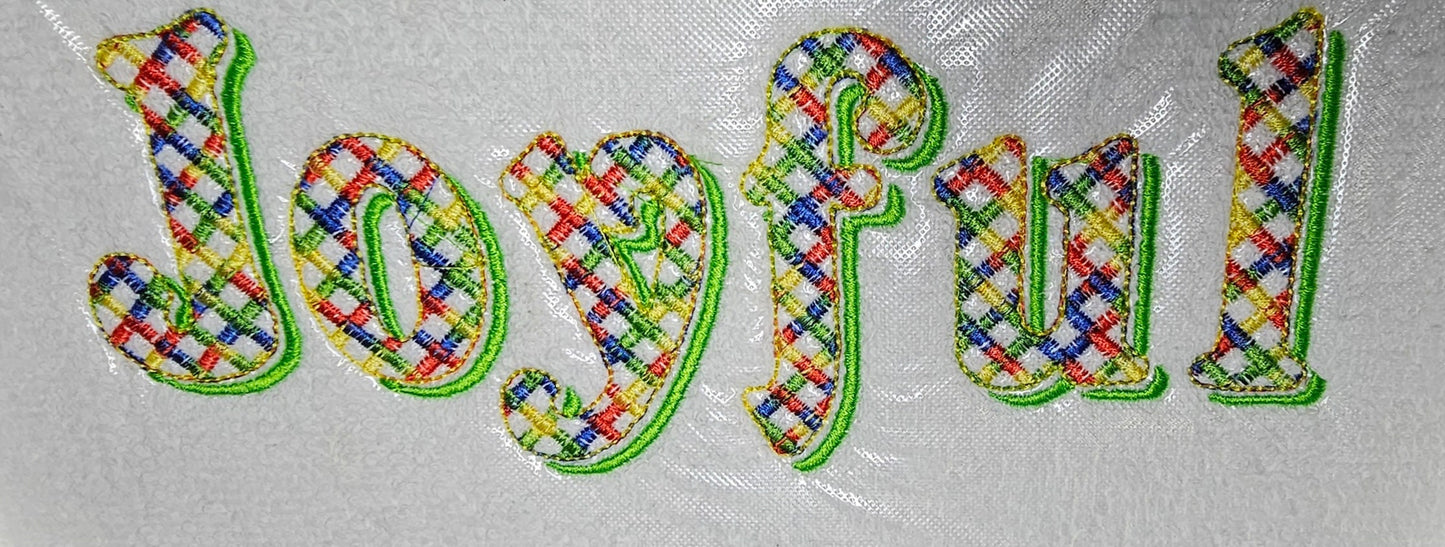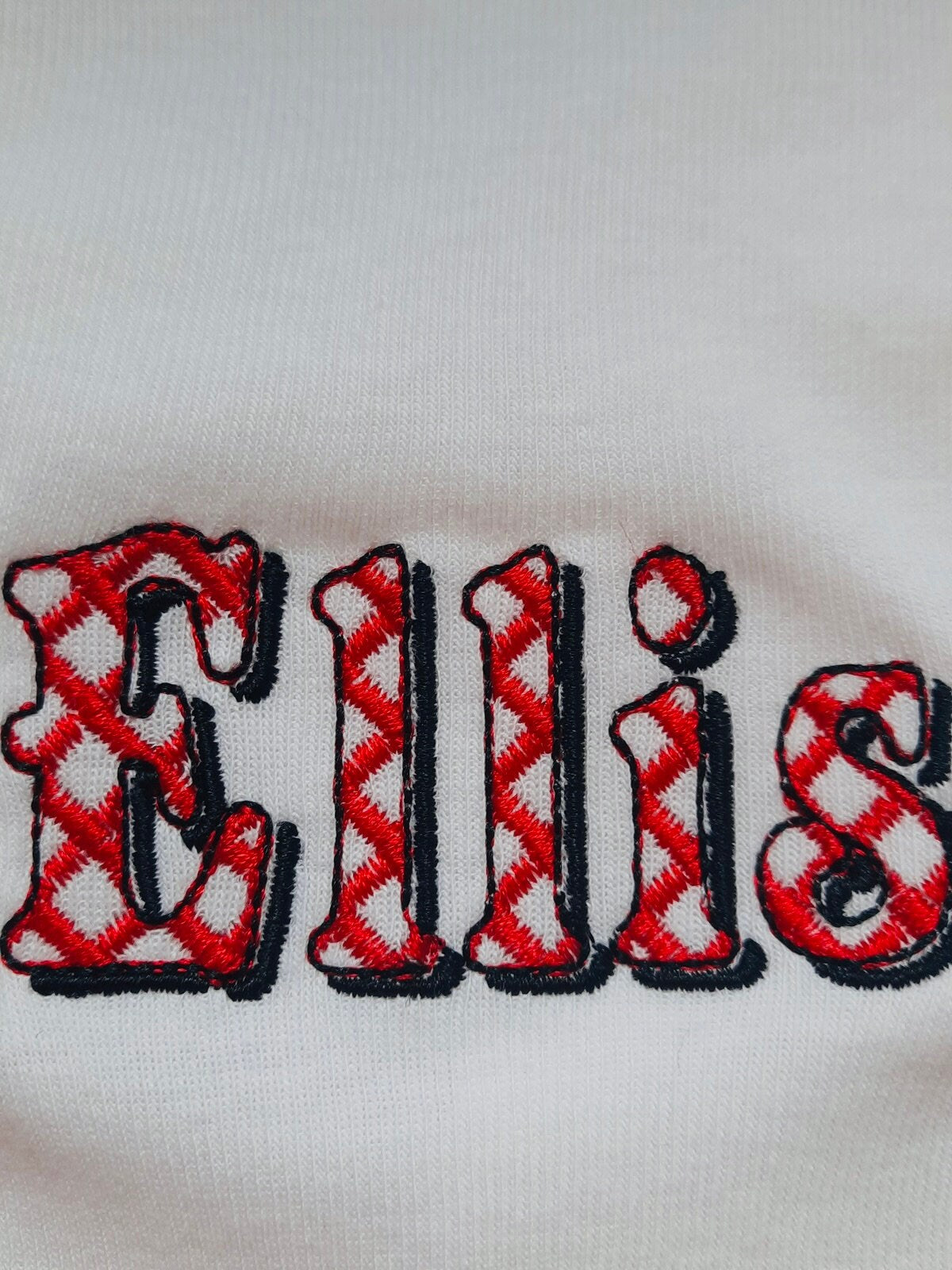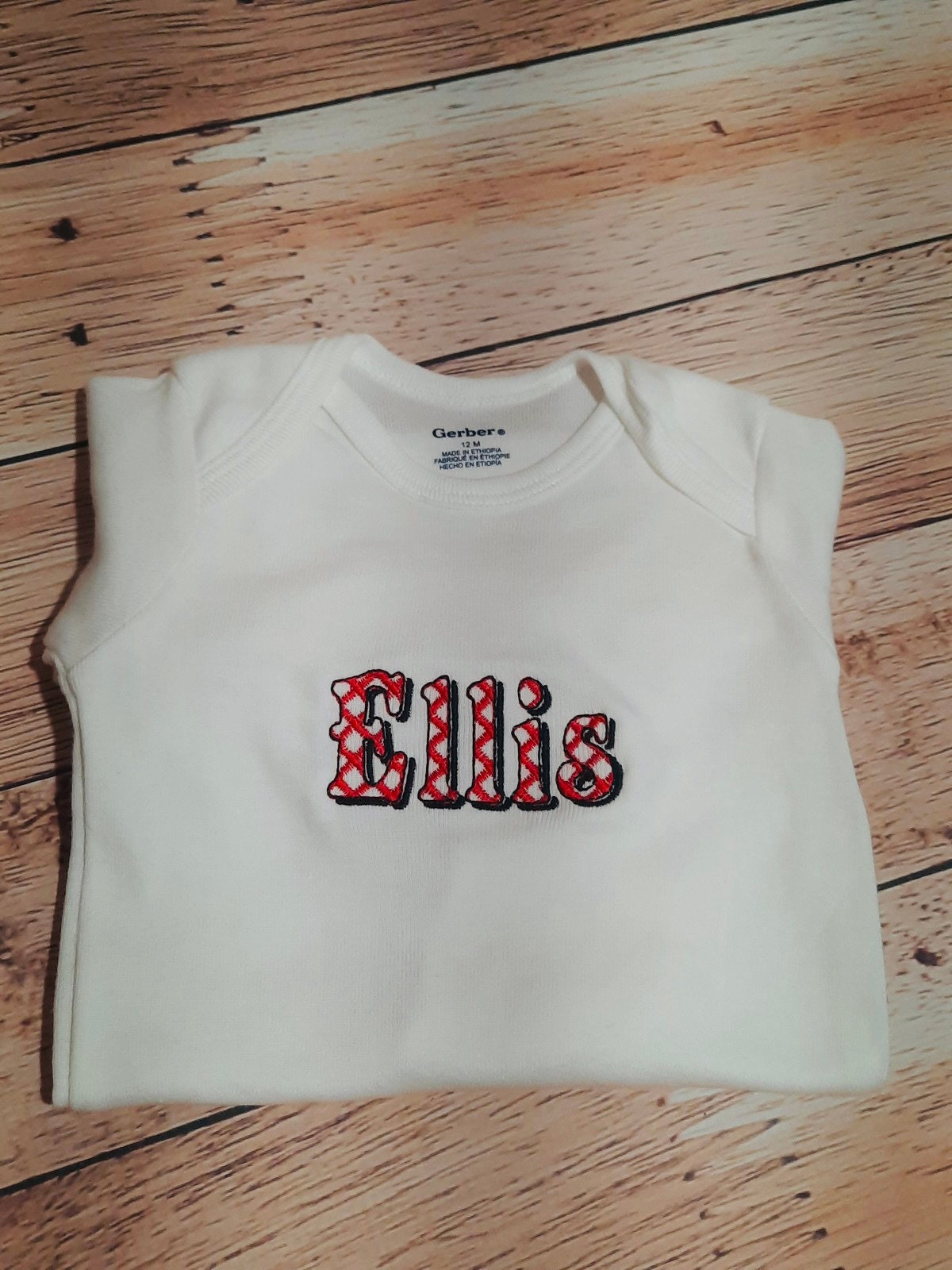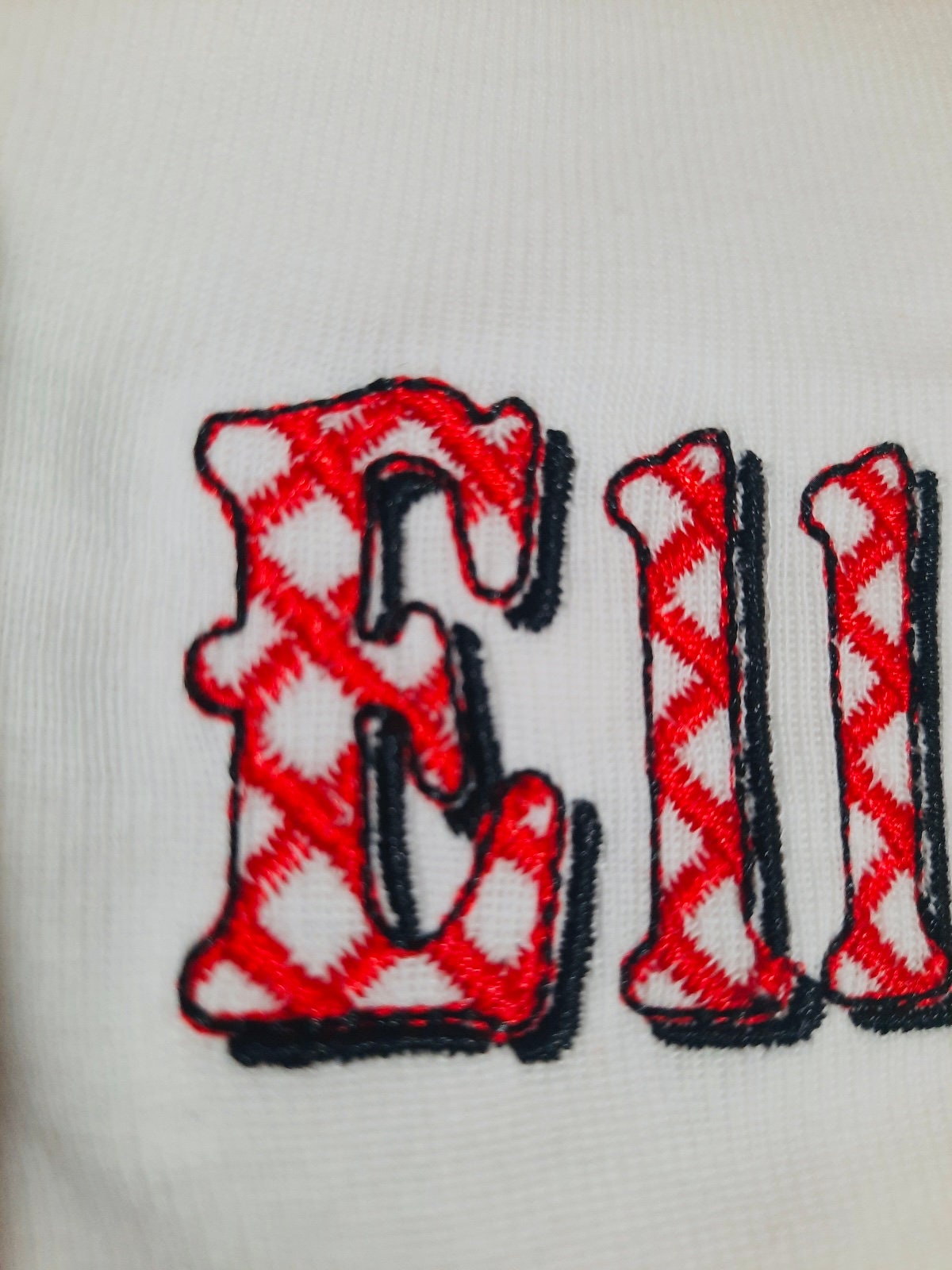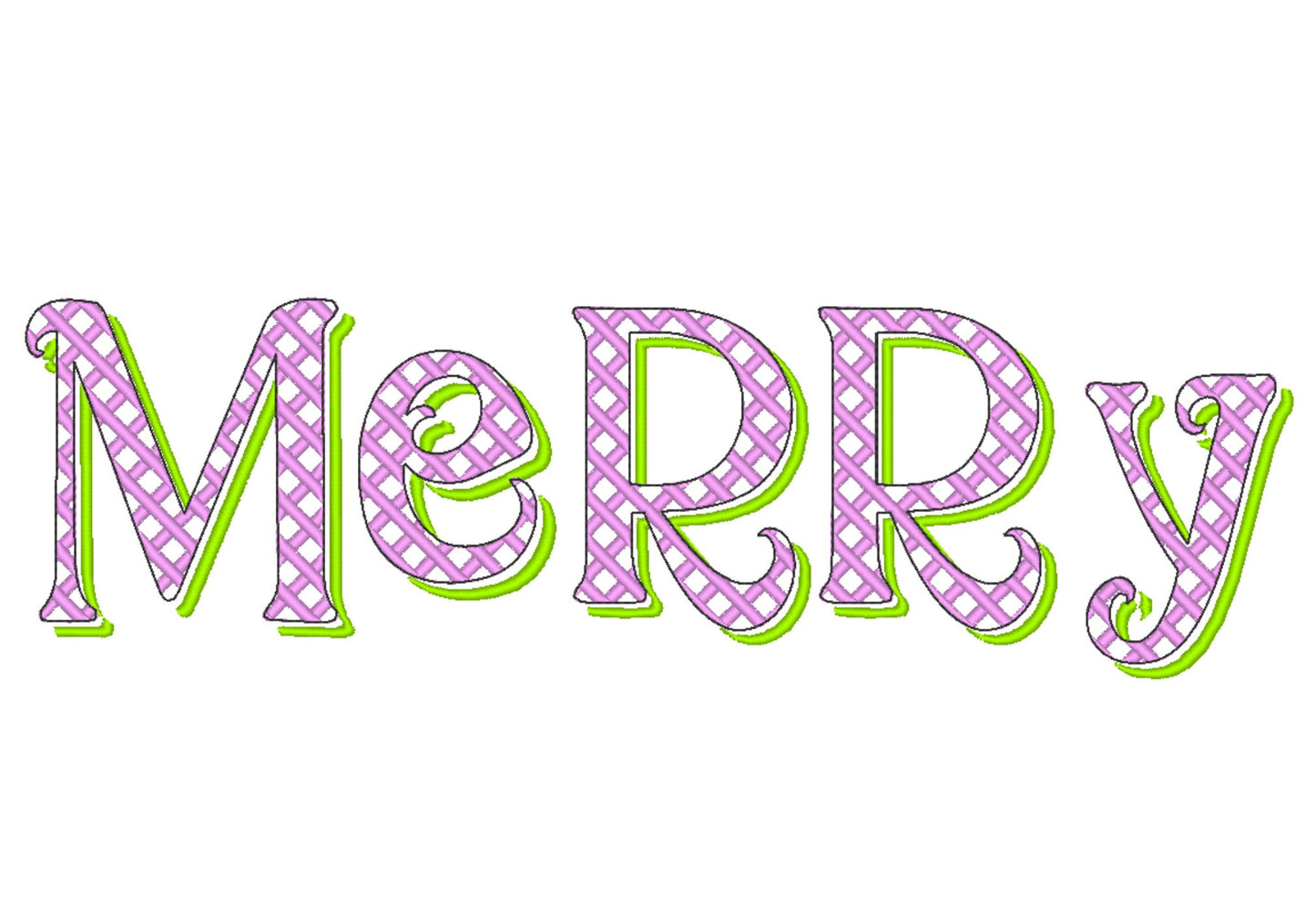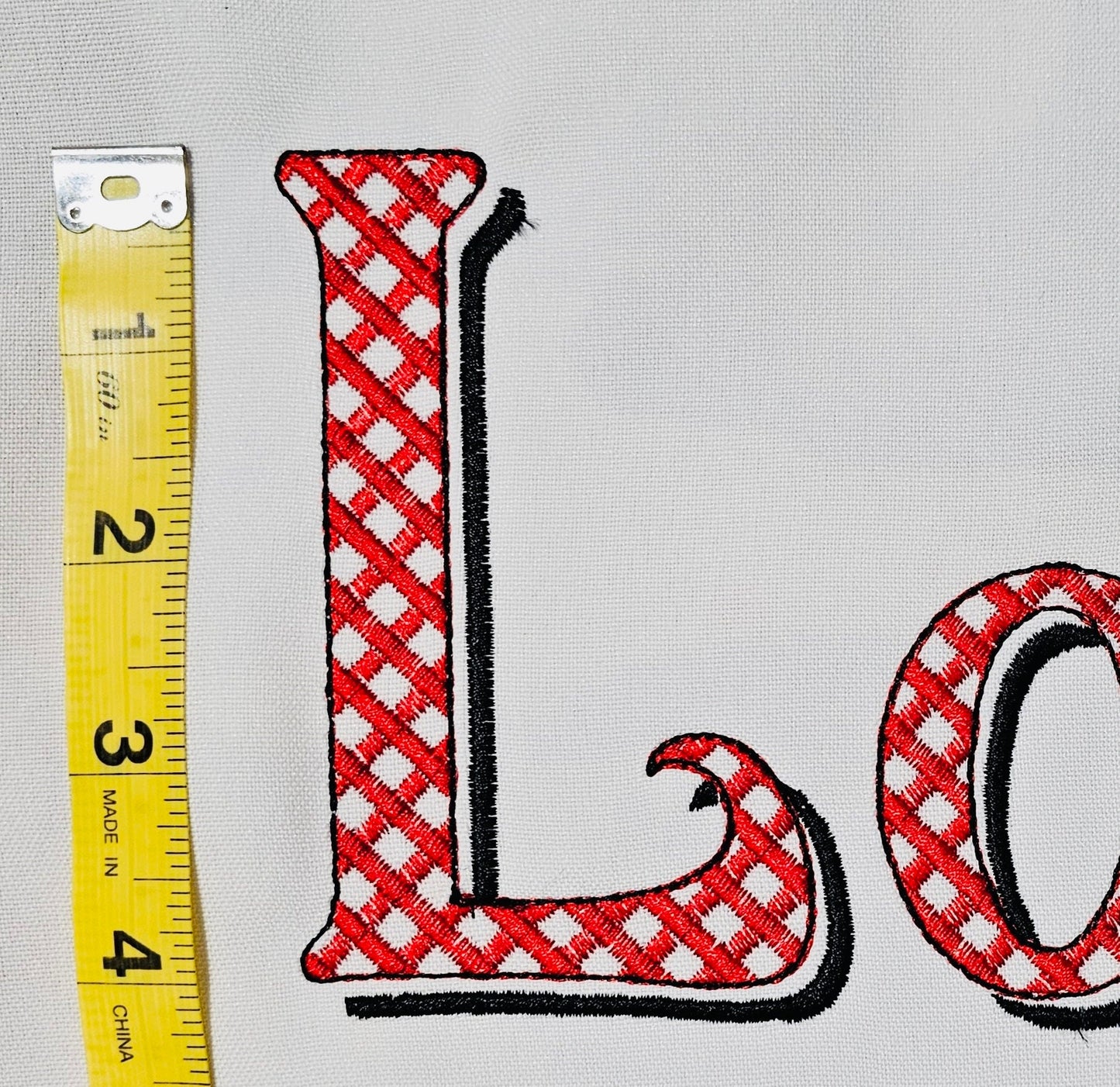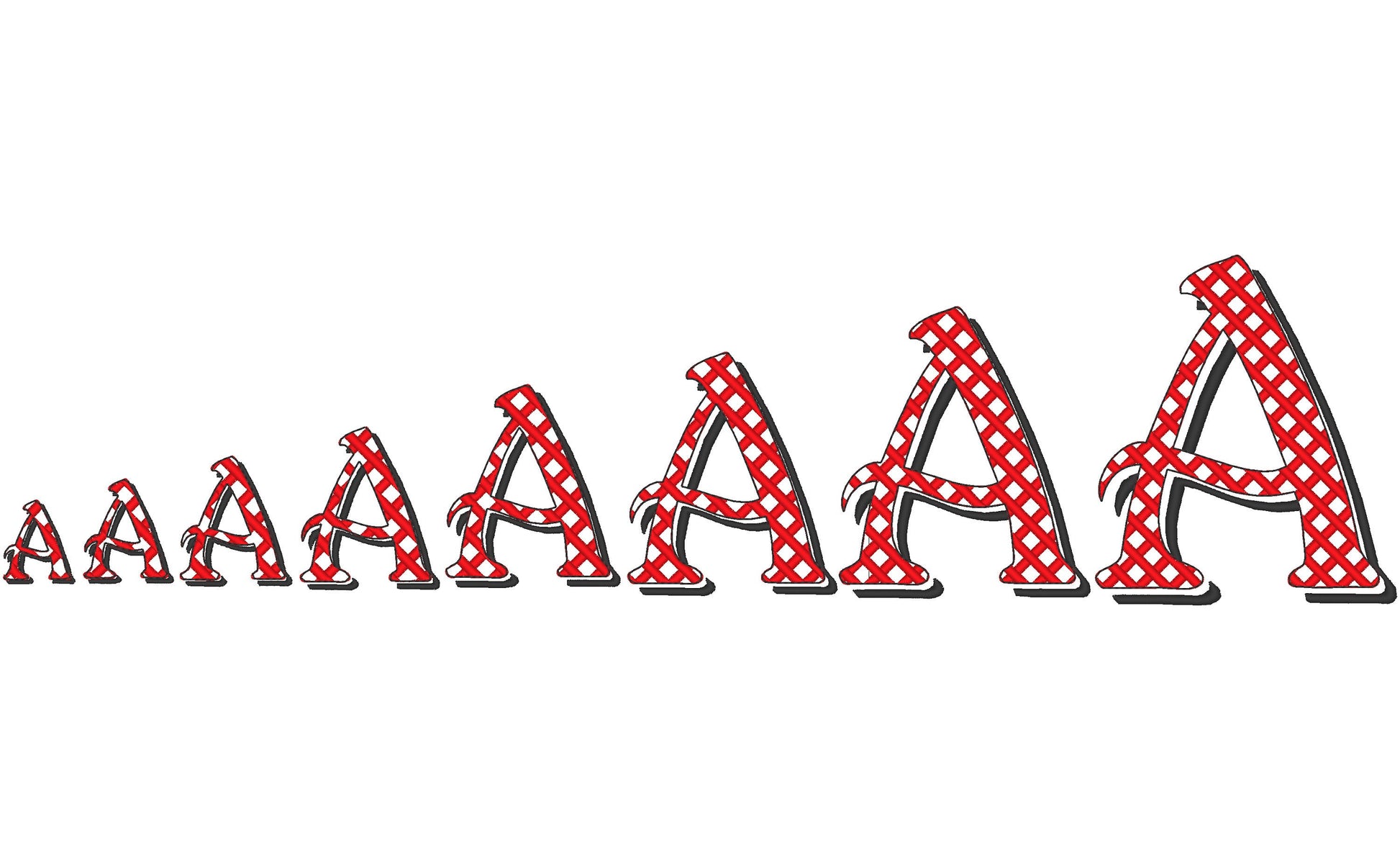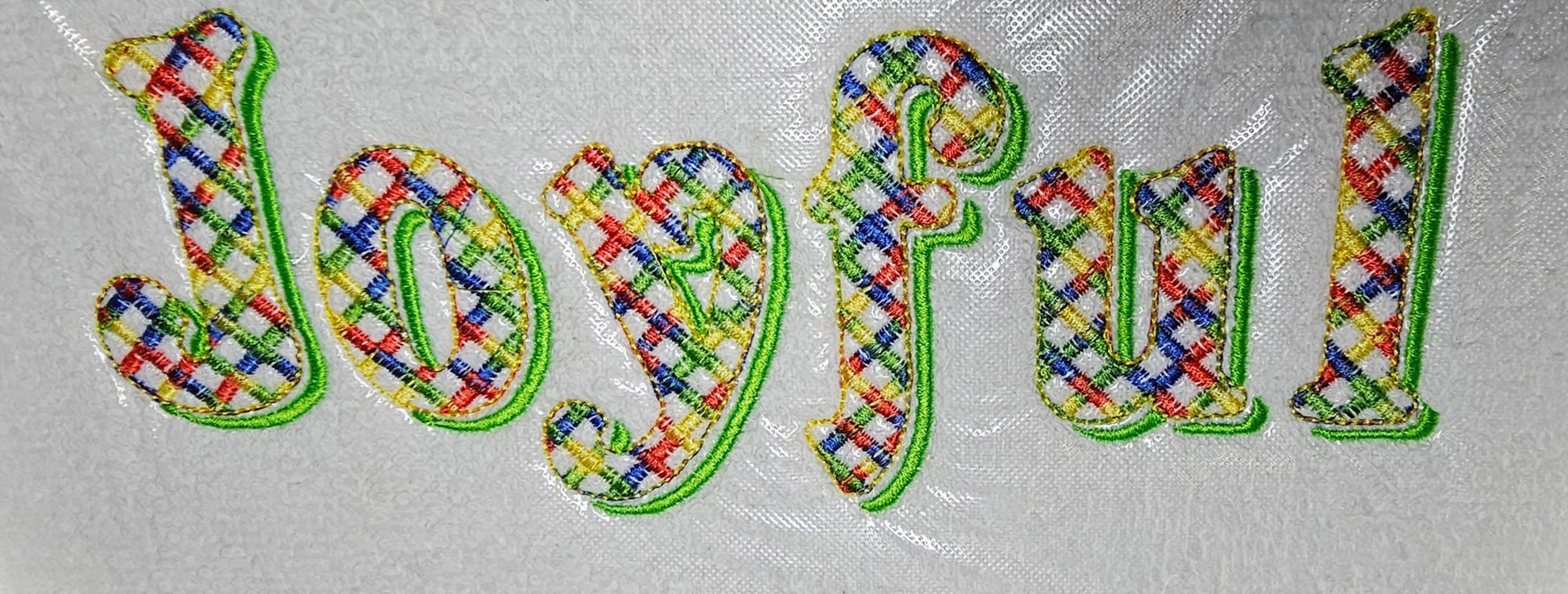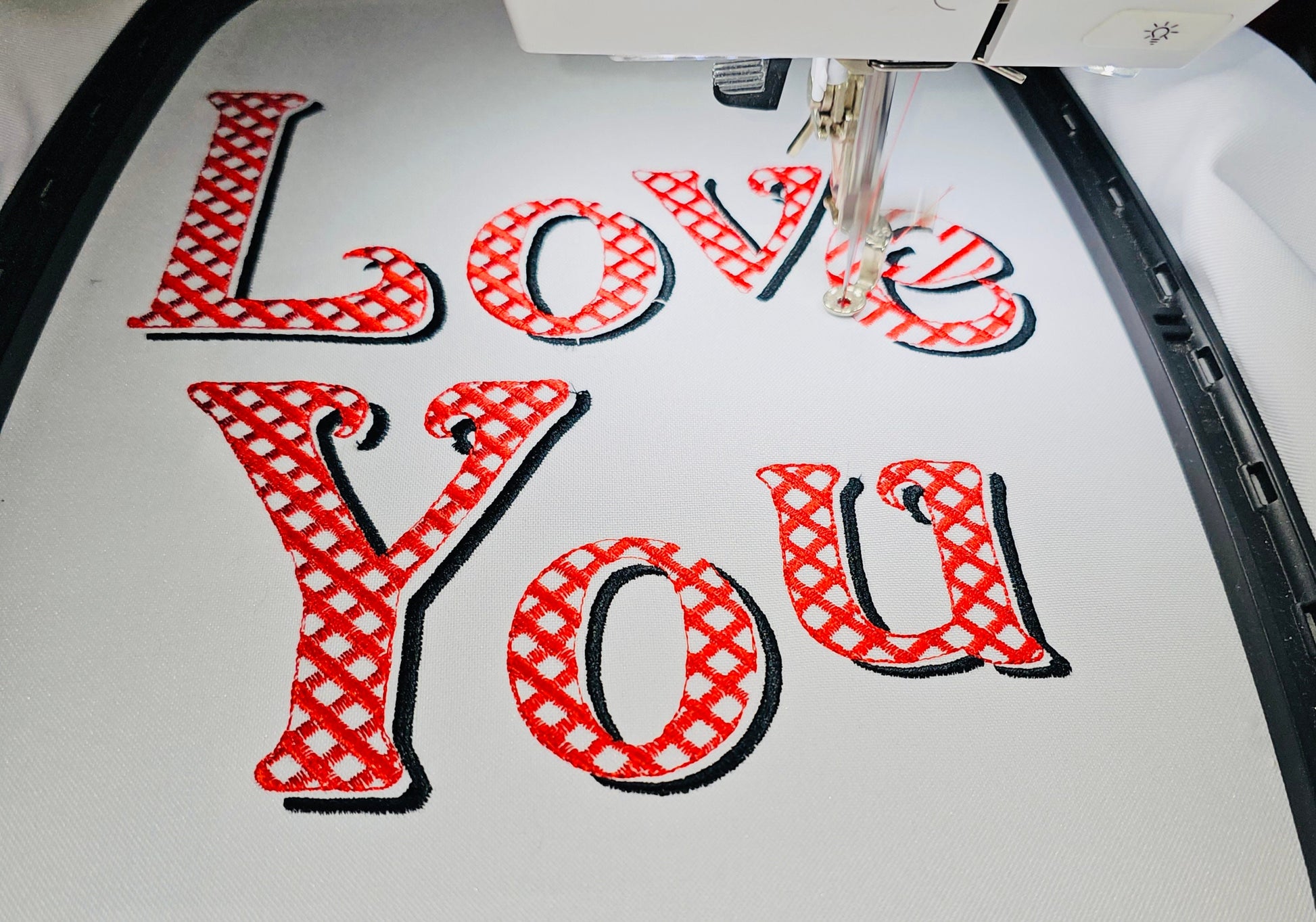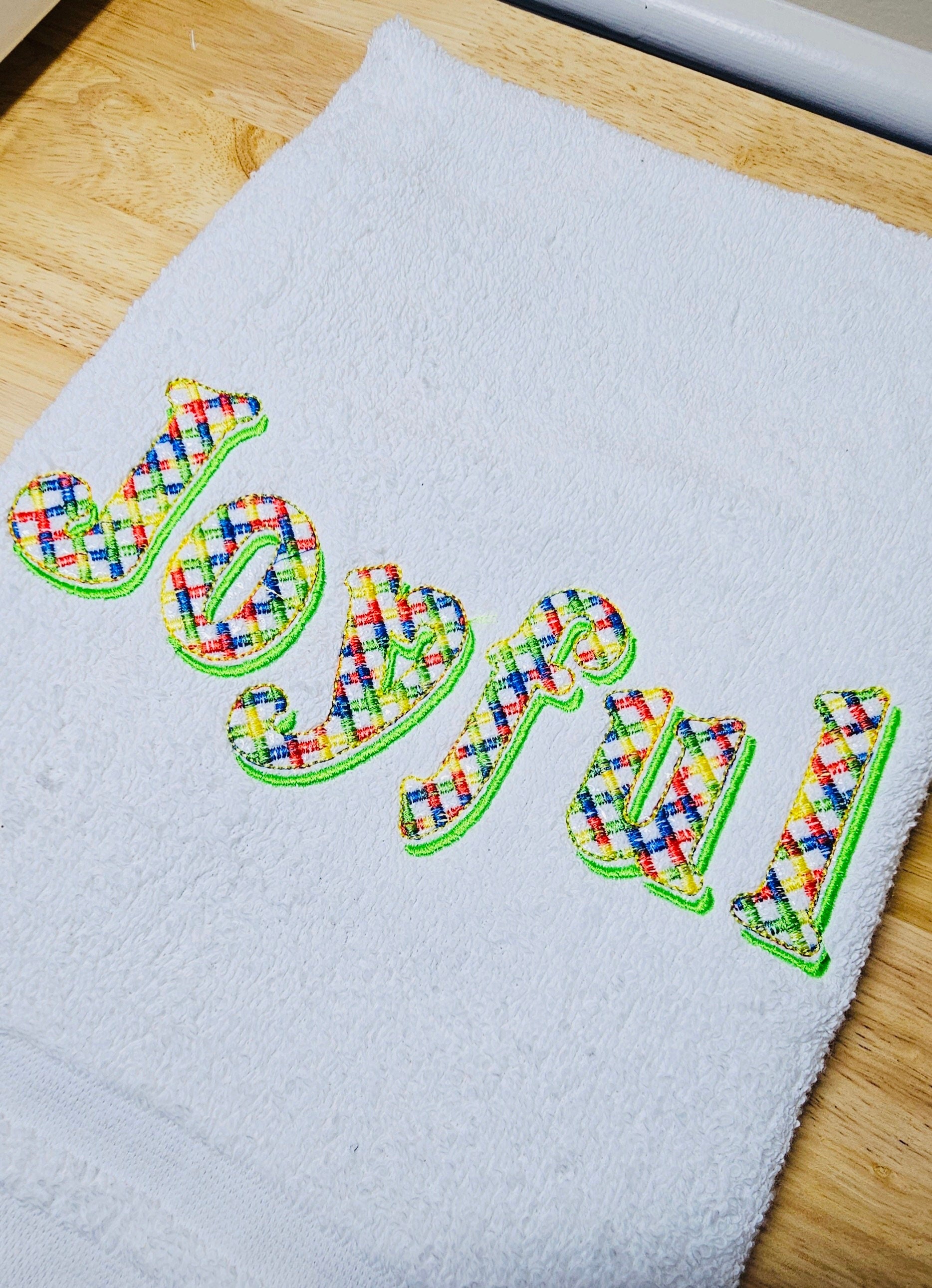
Or click to open the linkA Christmas gingham font with a shadow in light stitching, so the fabric shows through the checks. Cozy for stockings, holiday shirts, pillows and names.
Uppercase and lowercase letters and numbers 0 to 9 in eight sizes: 1, 1.2, 1.5, 1.9, 2.4, 2.8, 3.4 and 4 inches.